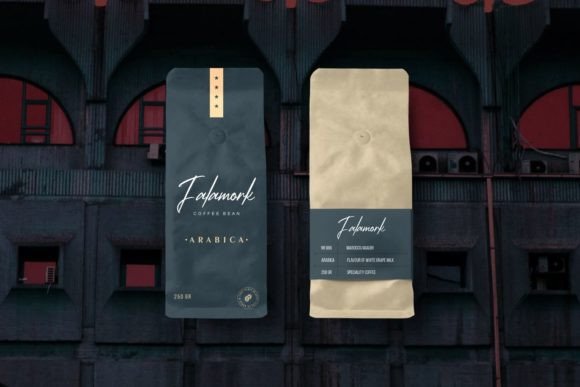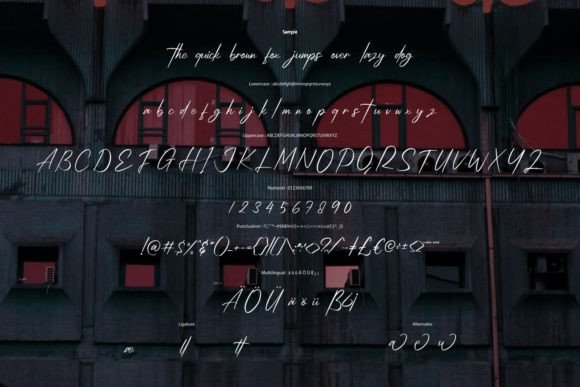
The Fantastica Font: A Delicate and Elegant Handwritten Masterpiece
Have you ever been in the middle of a design project, and suddenly, you’re stuck on finding the perfect font? I recall a recent experience where I was working on a client’s wedding invitation, and I just couldn’t seem to find a font that captured the elegance and whimsy I was looking for. That’s when I stumbled upon the Fantastica font, and let me tell you, it was love at first sight! 💕
A Personal Review: What I Love About Fantastica
Fantastica is a delicate and elegant handwritten font that has stolen my heart. Here are a few things I absolutely love about it:
- ✨ Distinct and well-balanced letters that make it a masterpiece
- ✅ Incredibly versatile style that can be used for various design projects
- 💫 Perfect for creating spectacular designs that require a touch of elegance and whimsy
- 🎨 Great for designs that require a personal and human touch
While Fantastica is an amazing font, there are a few small quirks to keep in mind:
- 🤔 Some letters may require manual kerning for optimal spacing
- ⚠️ May not be suitable for very large or very small font sizes
- Experiment with OpenType features, such as ligatures and stylistic alternates, to add personality to your design
The Backstory of Fantastica
Fantastica was designed by a talented typographer who wanted to create a font that captured the essence of elegance and whimsy. The designer’s inspiration came from classic handwritten scripts, with a modern twist. The result is a font that’s both refined and playful, perfect for designs that require a touch of sophistication and personality.
| Font Name | Fantastica Font |
| Author | Vunira |
| What is the best way to use Fantastica in my design? | Fantastica is a versatile font that can be used for various design projects, from wedding invitations to branding materials. Experiment with different OpenType features and glyphs to add personality to your design. |